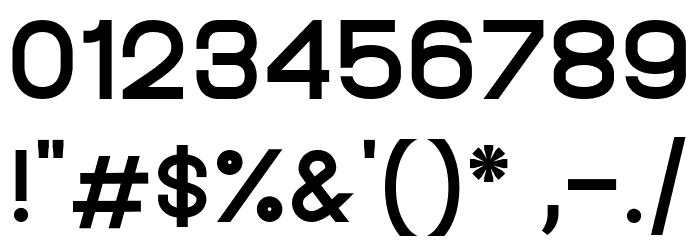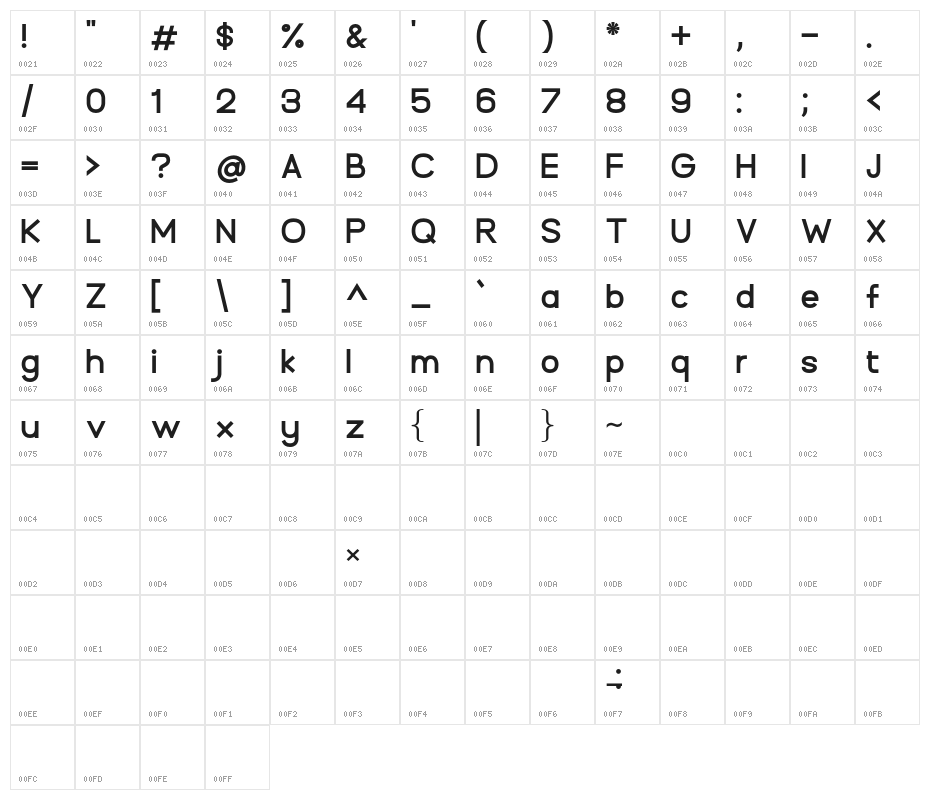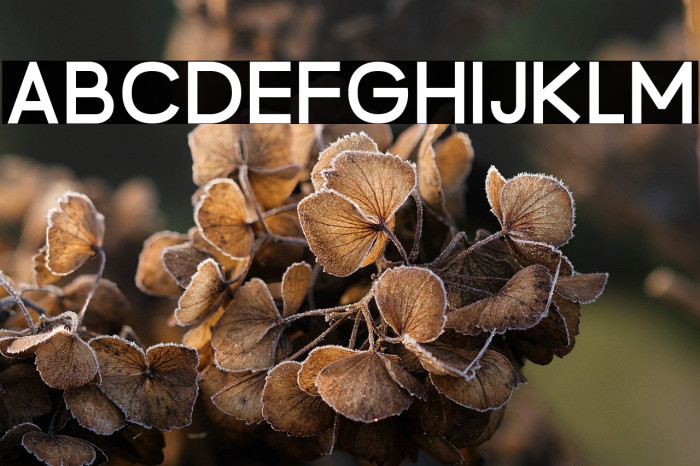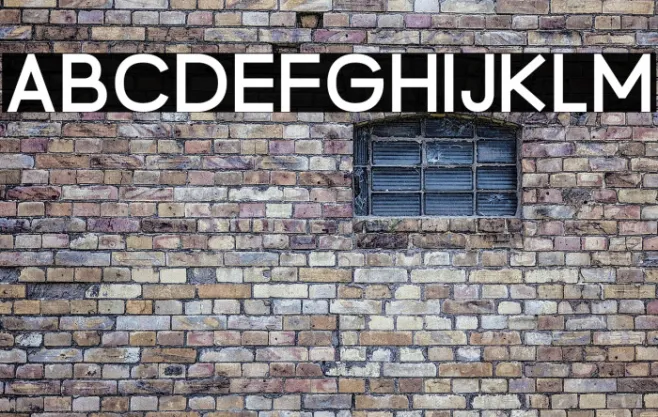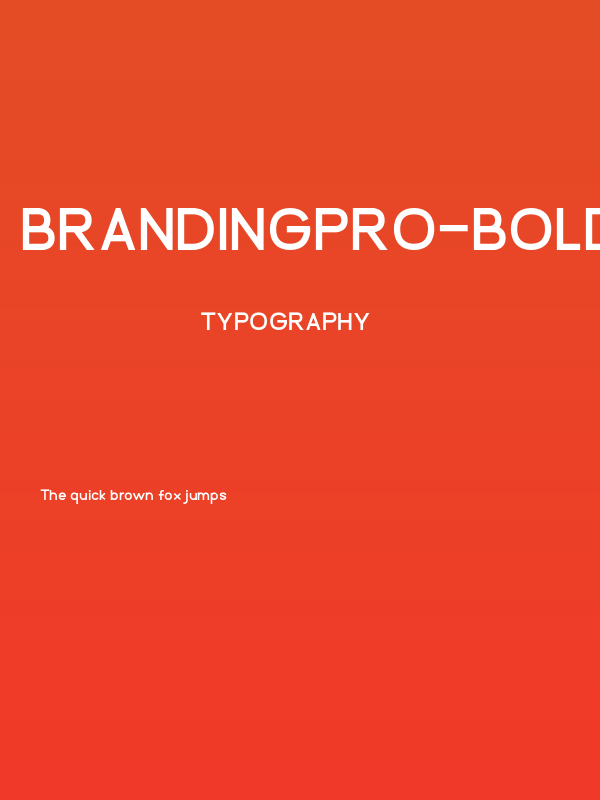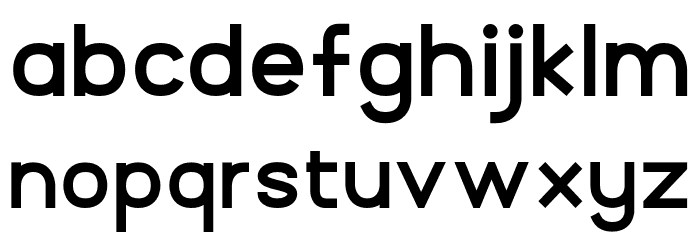
BrandingPro-Bold Font
BrandingPro-Bold Description
This font features a clean and modern sans-serif style with bold, uniform strokes that convey a sense of strength and clarity. The characters are well-proportioned, with a consistent weight that enhances readability. The uppercase letters are slightly taller than the lowercase, providing a balanced and harmonious appearance. The numerals are clear and distinct, making them suitable for various applications. The special characters are designed to match the overall aesthetic, ensuring a cohesive look across all text elements.
| Proposed Projects | Ideal for branding, advertising, headlines, and digital media where a modern and bold statement is needed. |